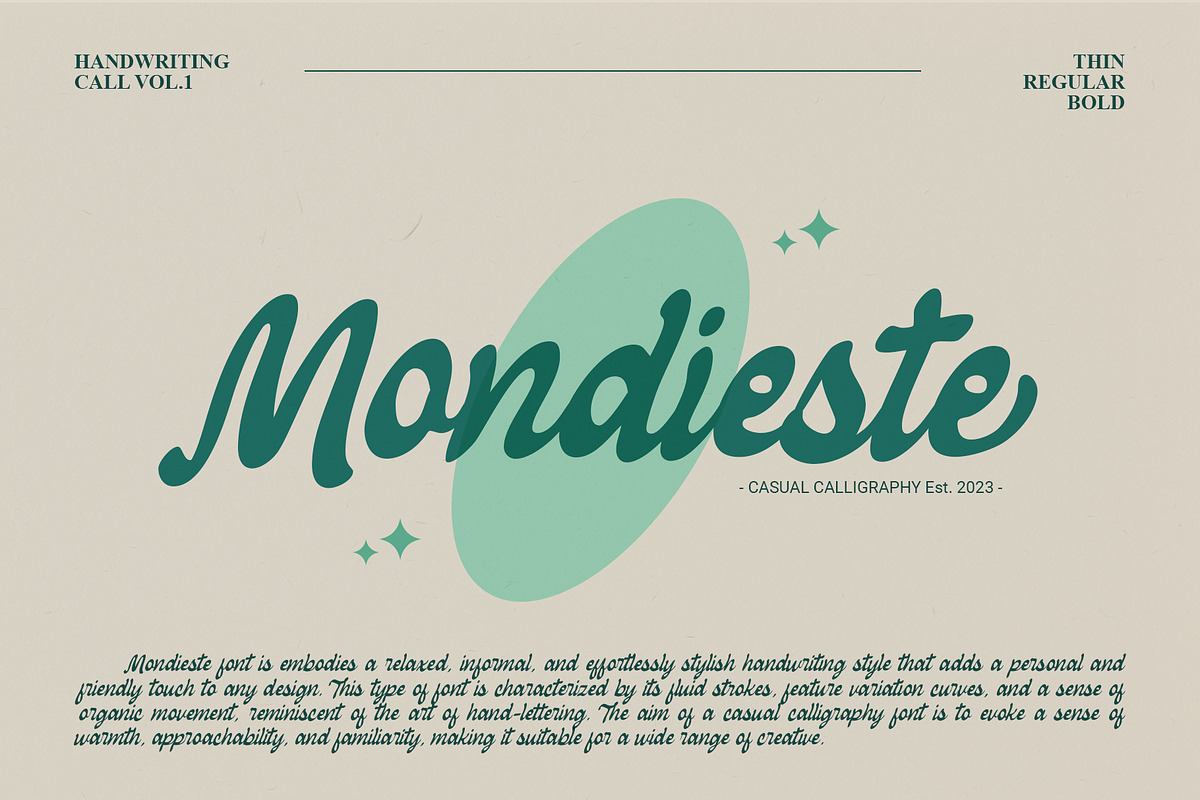
Mondieste - Casual Calligraphy Font Free Download
The Mondieste - Casual Calligraphy Font Free Download is a stylish and relaxed script typeface that blends elegance with a laid-back charm. Featuring smooth strokes, natural curves, and handwritten character, Mondieste is perfect for wedding invitations, branding, social media graphics, greeting cards, and lifestyle blog headers.
This font captures the look of casual calligraphy while maintaining readability and balance. It includes a wide range of alternates, ligatures, and multilingual support, making it versatile and adaptable for both personal and professional projects. Whether you’re creating a romantic mood or adding a personalized feel to your design, Mondieste delivers grace and authenticity.